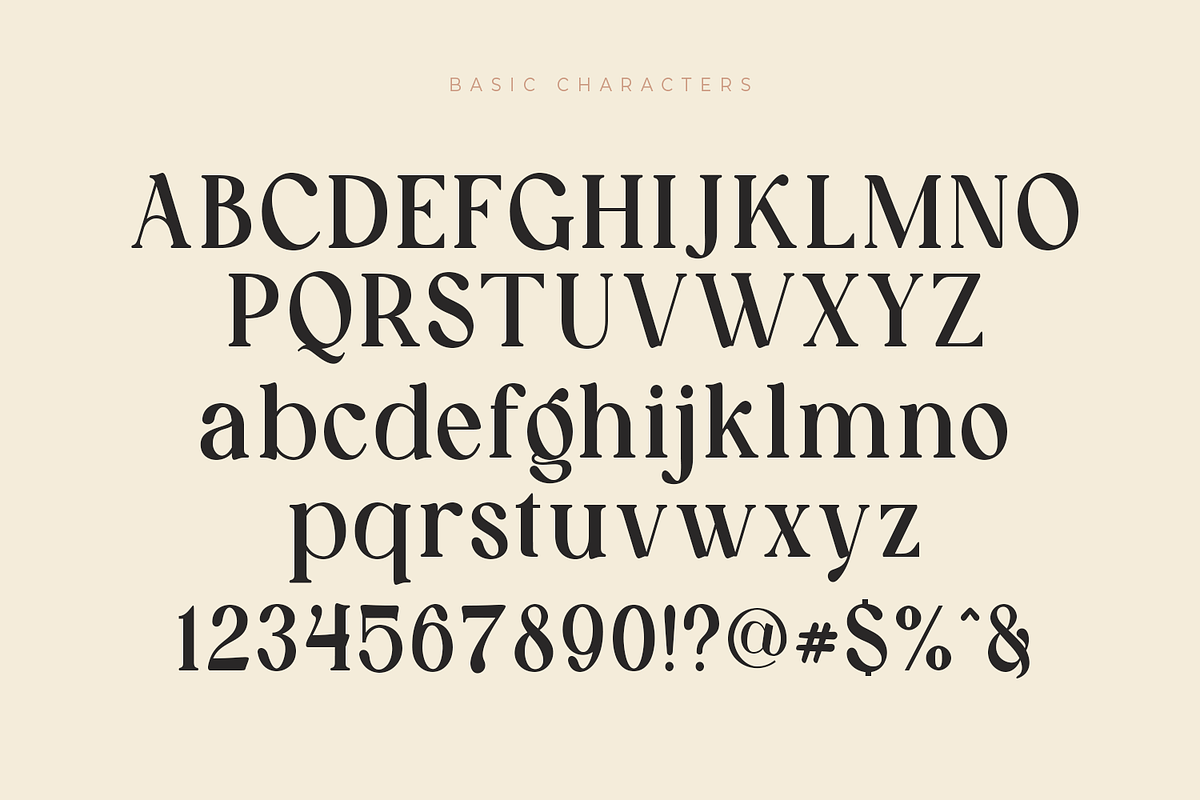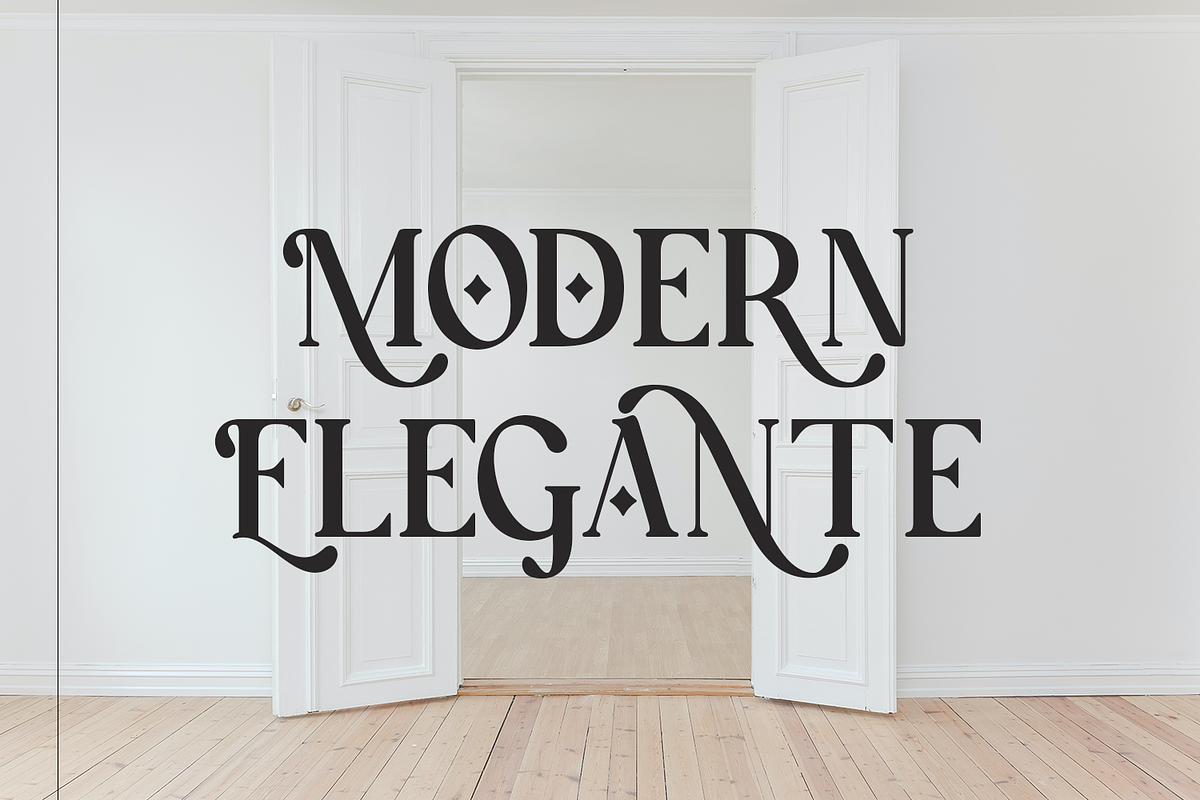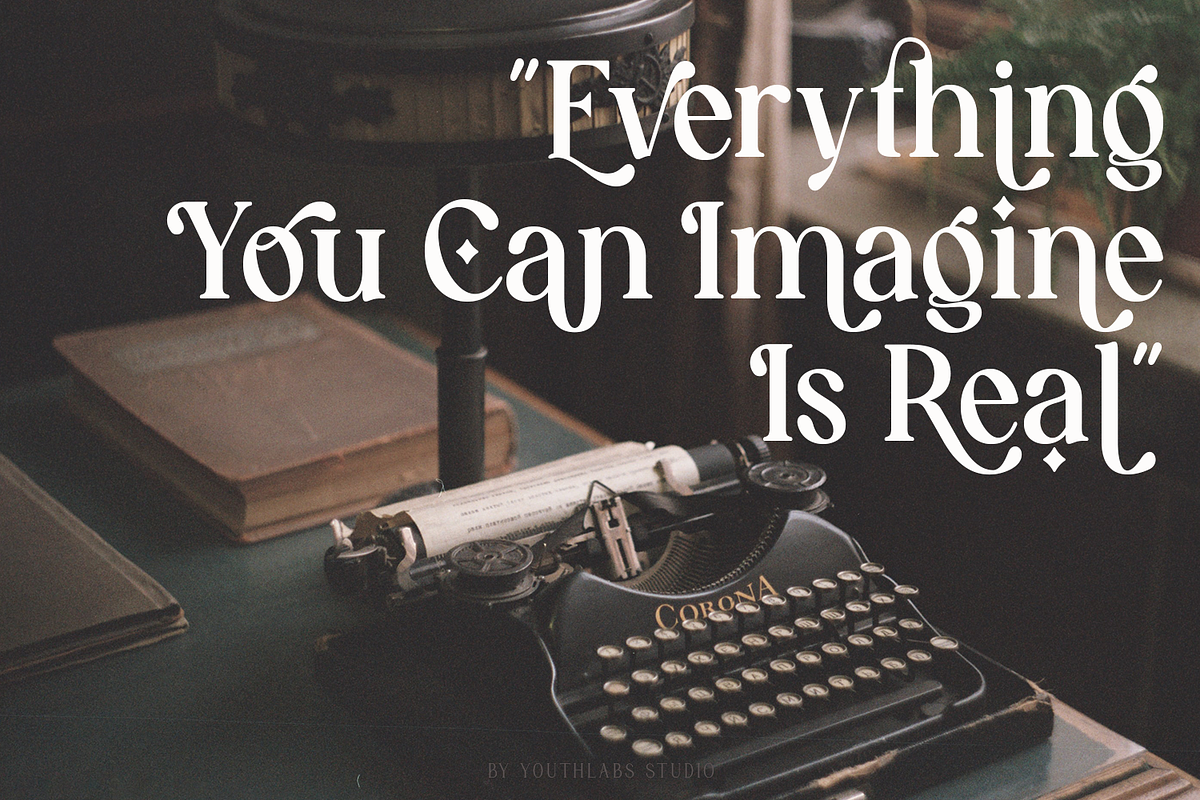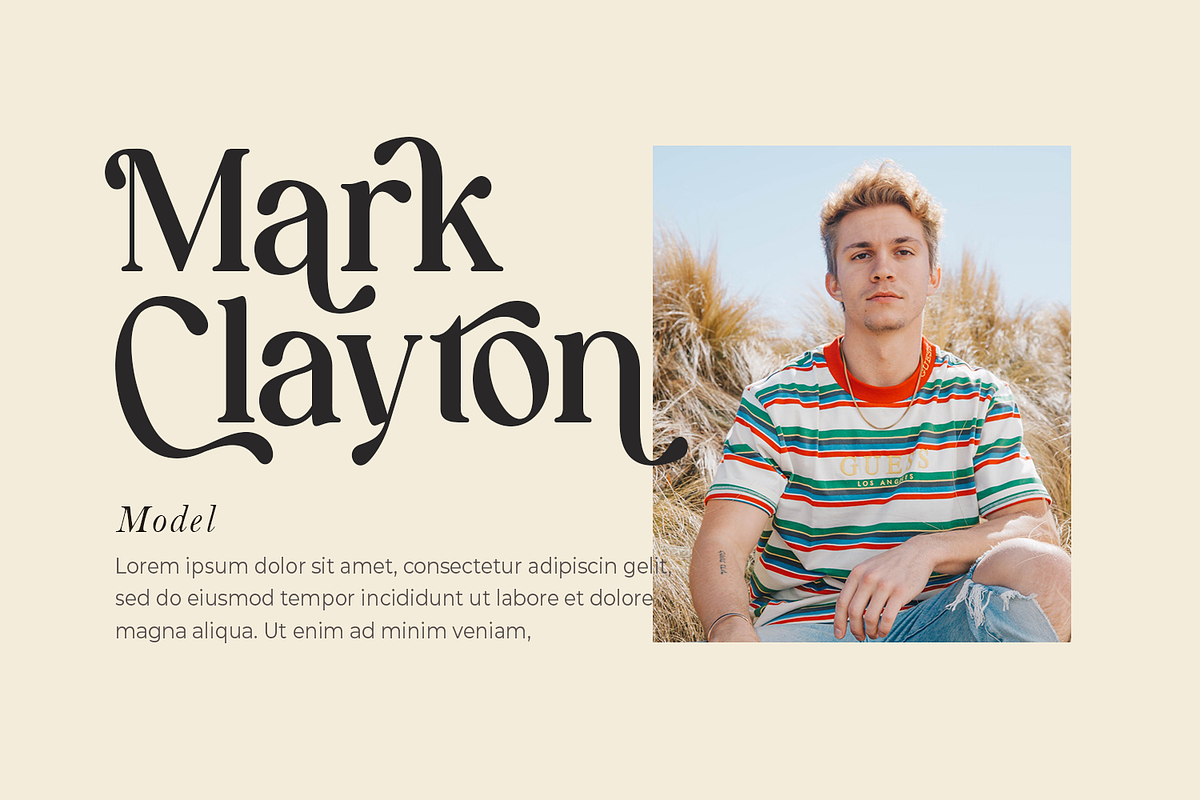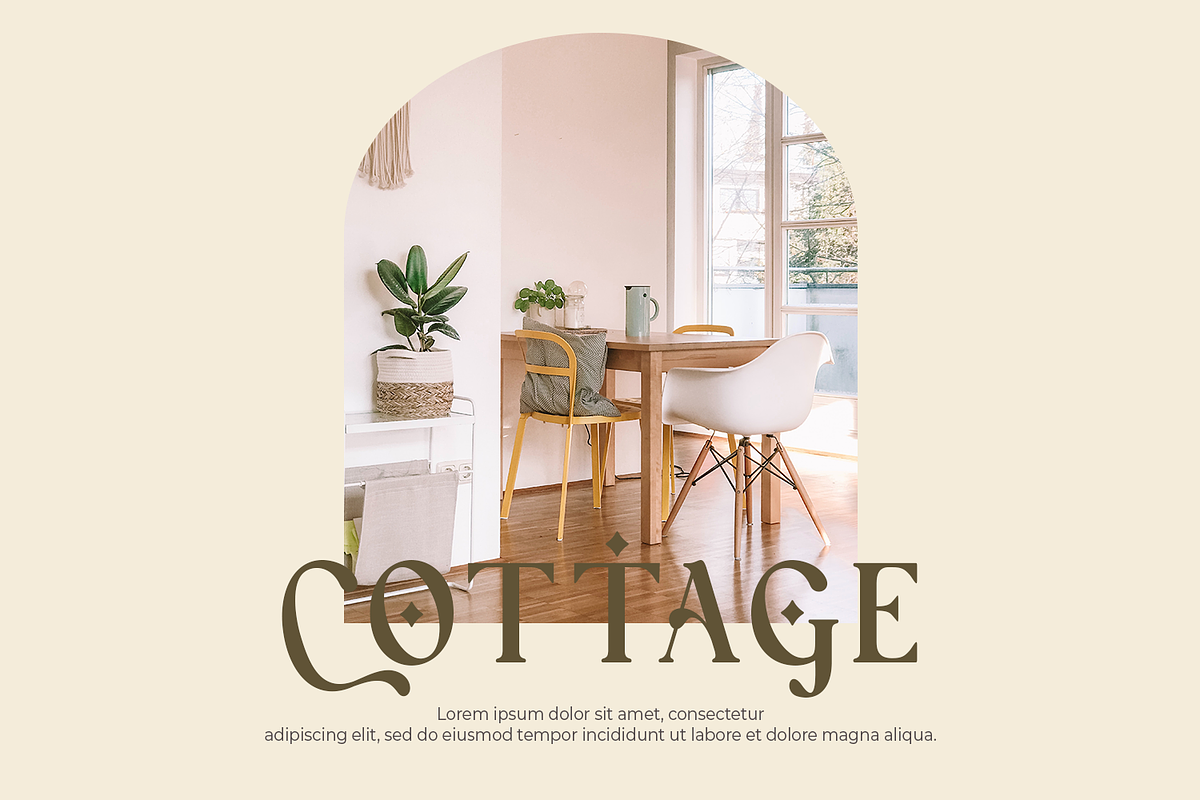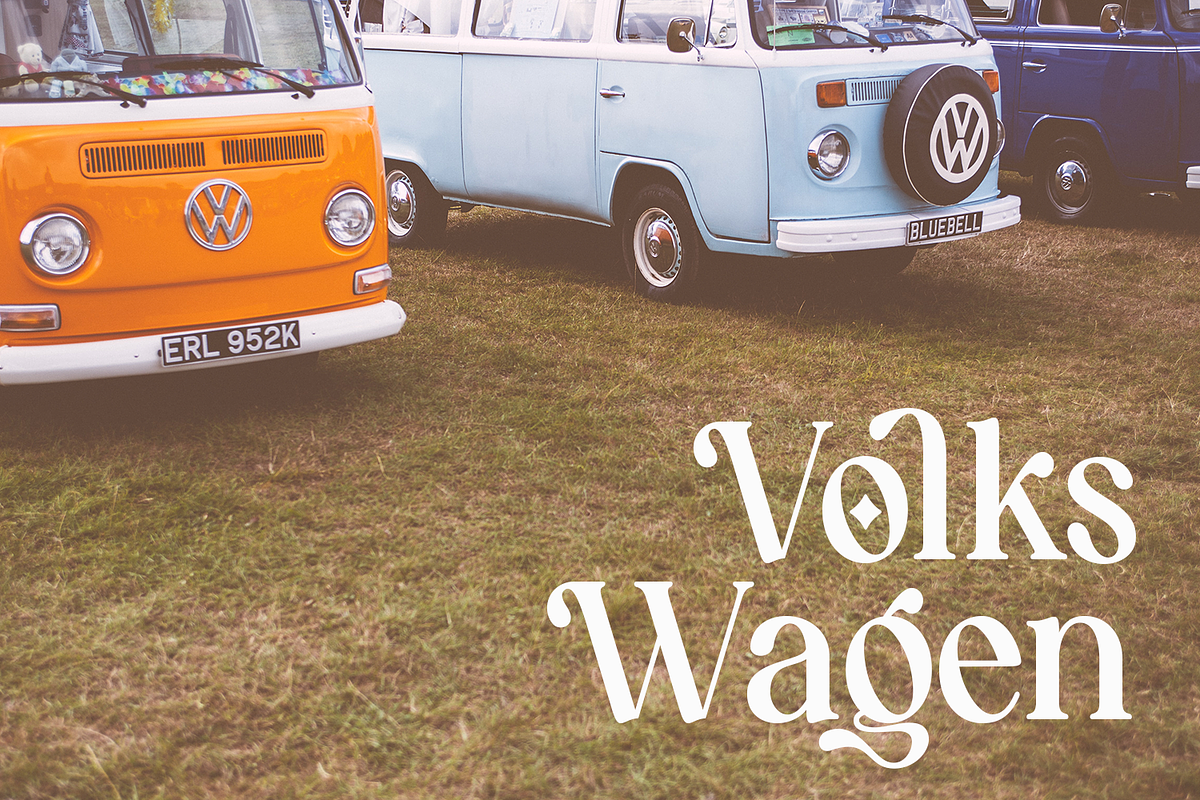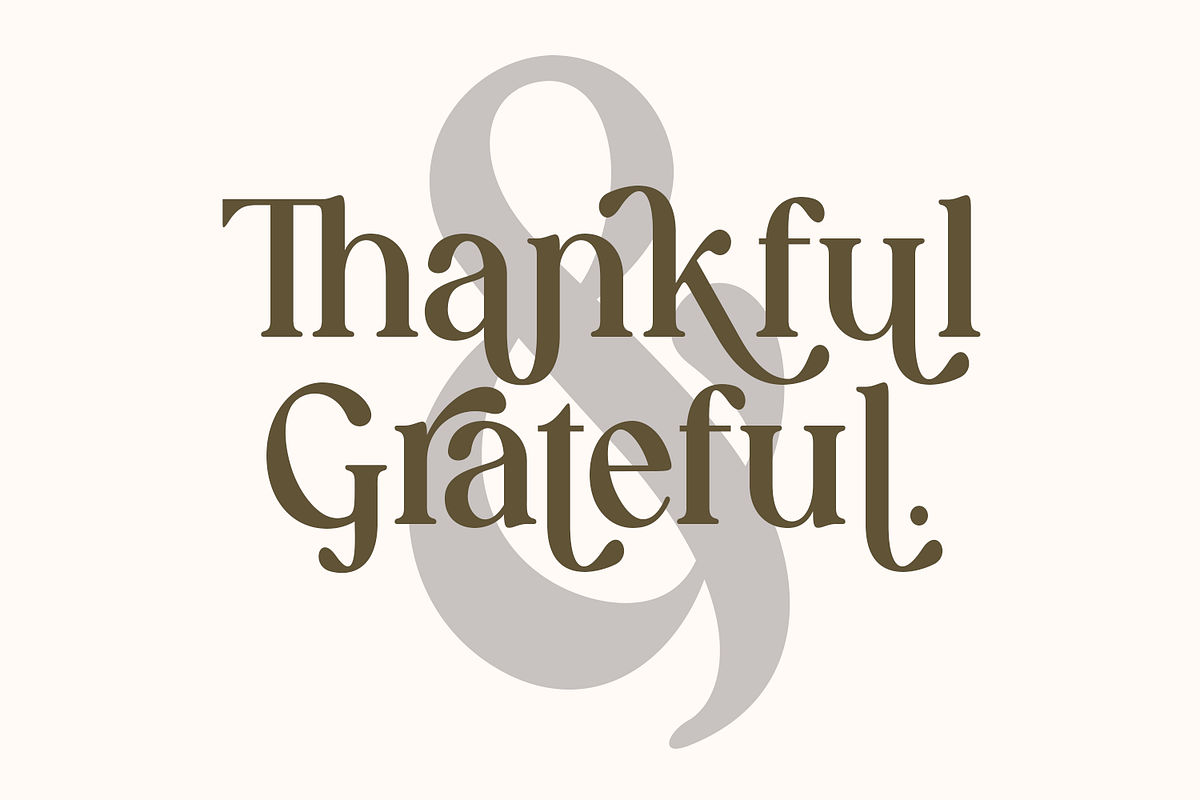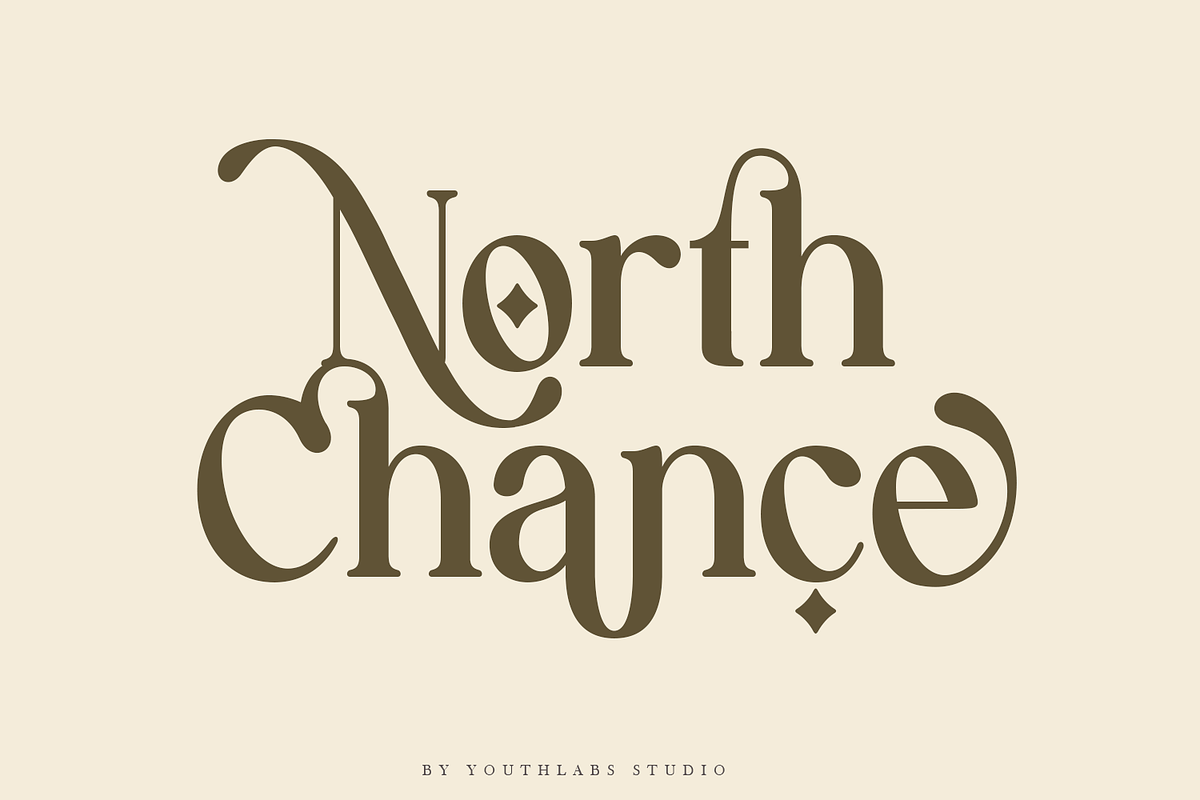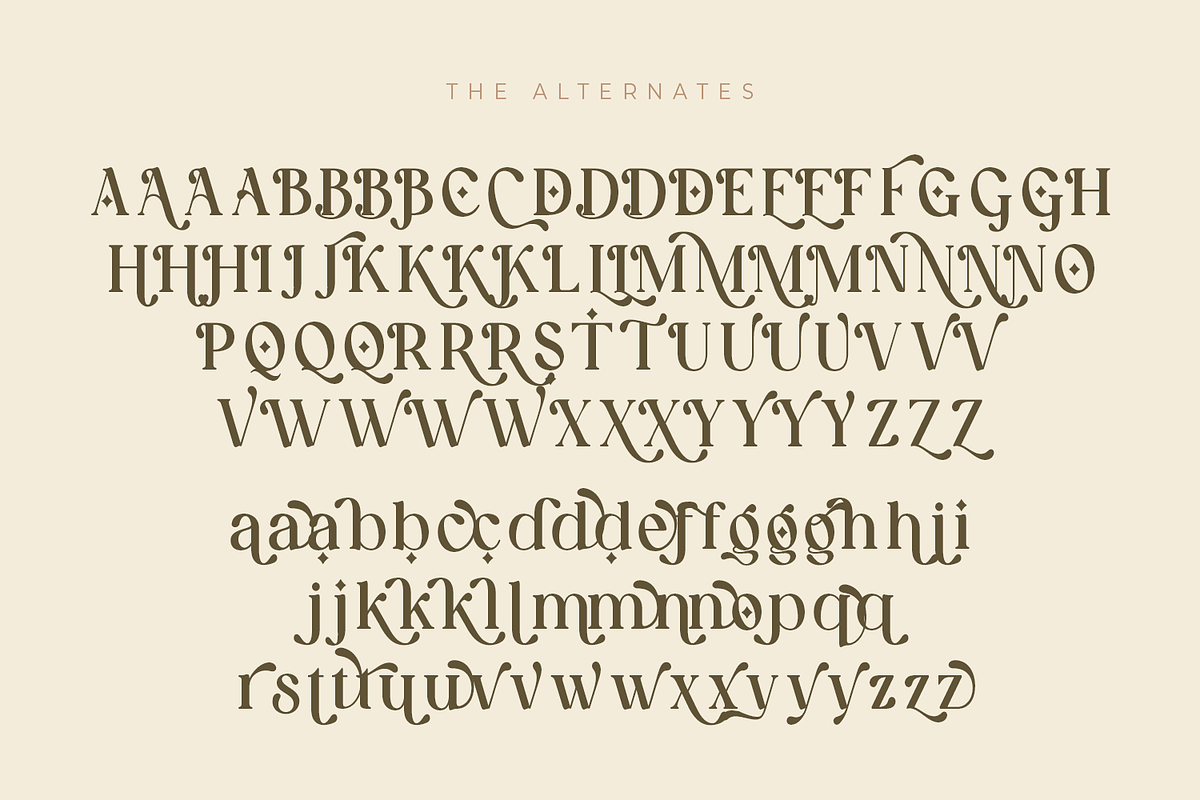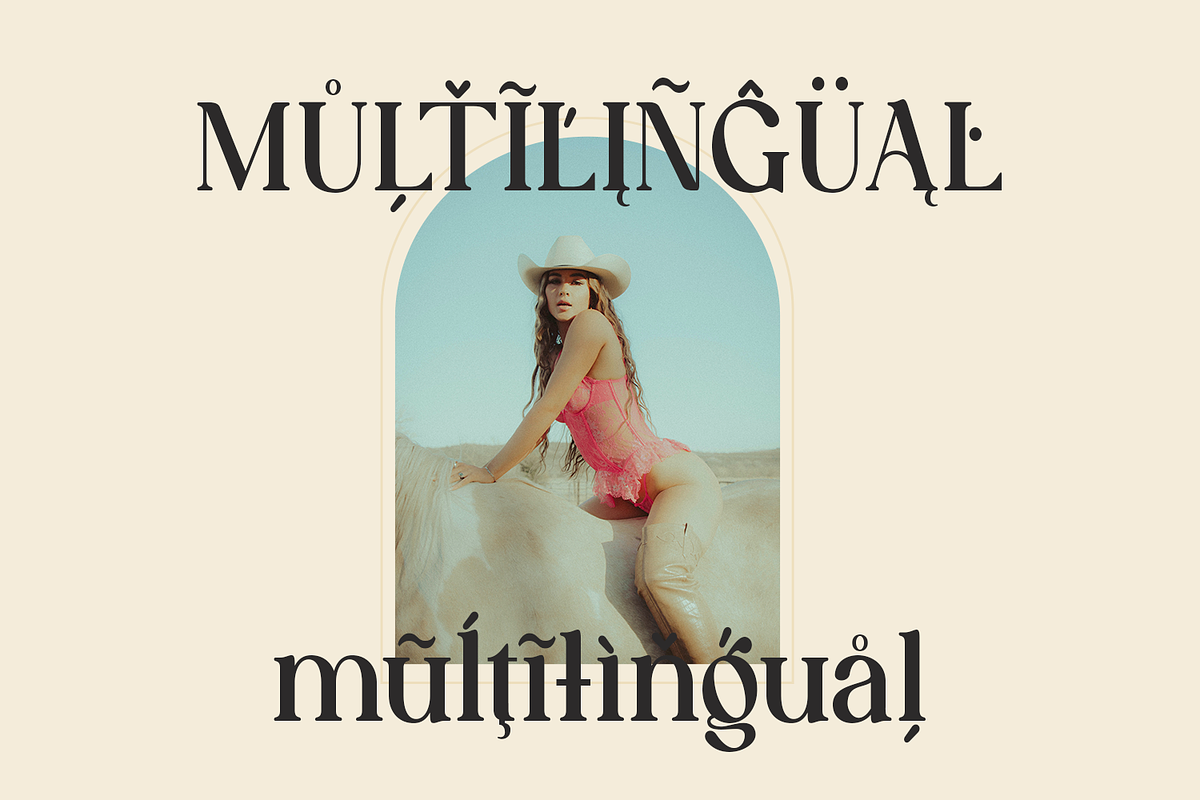
North Chance | Classy Retro Typeface
North Chance font is a serif font that gives off a classy, retro feel. With many alternative fonts, North Chance will make it easier for you to use various design functions, be it for logos, typography, t-shirts, branding, advertising, and more.
- Multilinguals